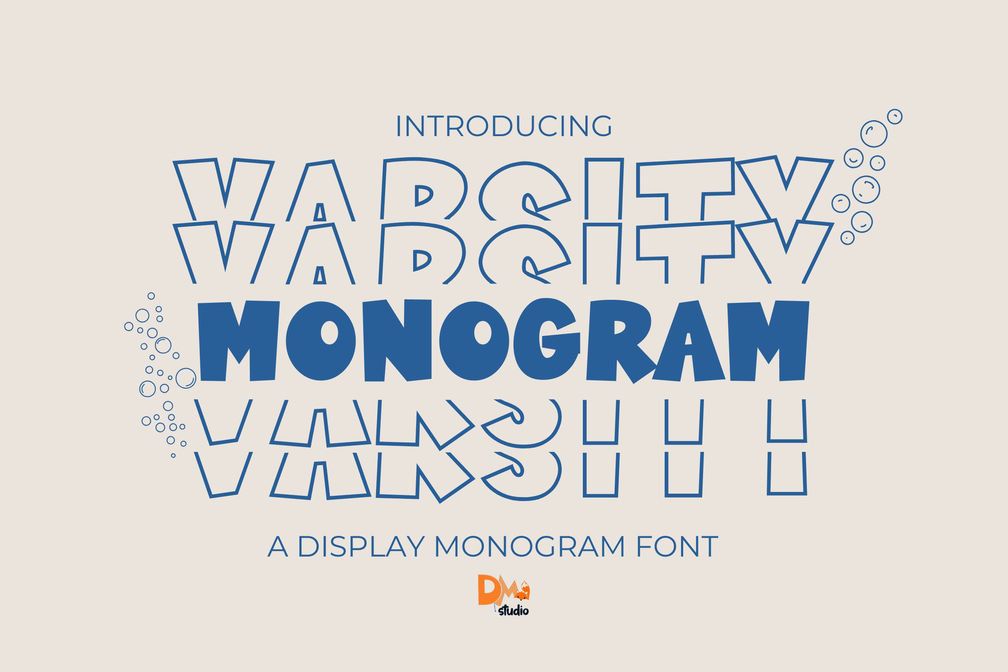
Varsity Monogram
Varsity Monogram – A Stacked Display Font
Varsity Monogram is a bold and structured stacked font inspired by classic varsity lettering, designed for monogram and display purposes. With its clean lines and stacked letter arrangement, this typeface is perfect for sports branding, team logos, collegiate apparel, personalized monograms, and creative design projects that require a strong and stylish look.
• Stacked Monogram Style: A bold and structured typeface with a varsity-inspired arrangement.
• Perfect for Sports & Collegiate Themes: Ideal for team logos, athletic wear, school branding, and varsity designs.
• Versatile & Eye-Catching: Great for monograms, initials, and display typography.